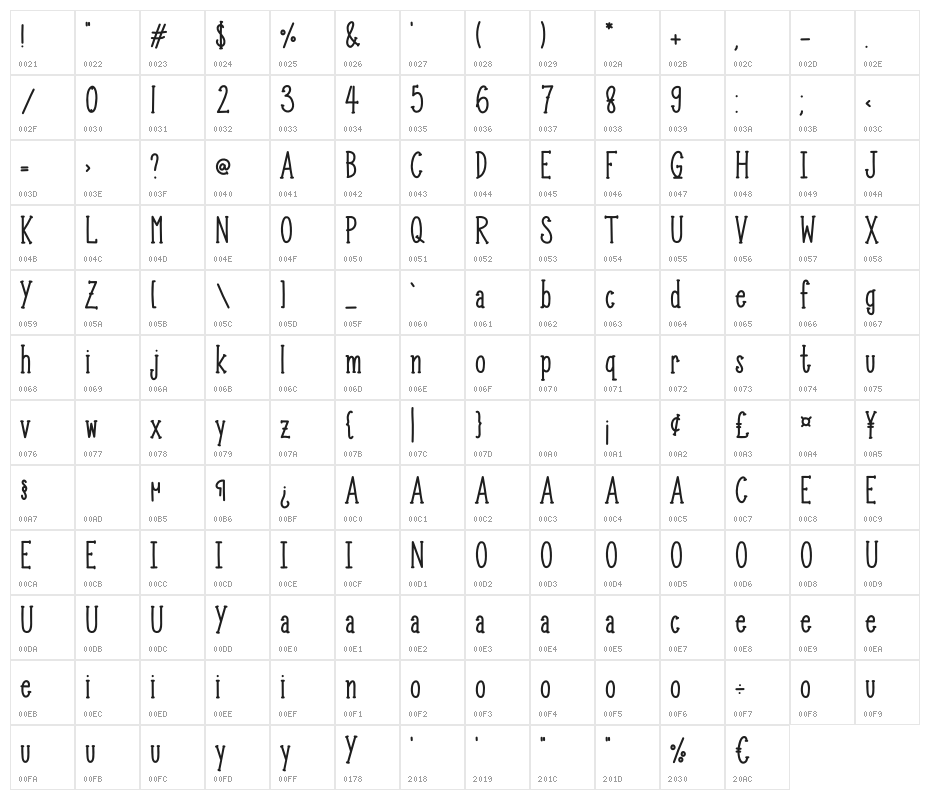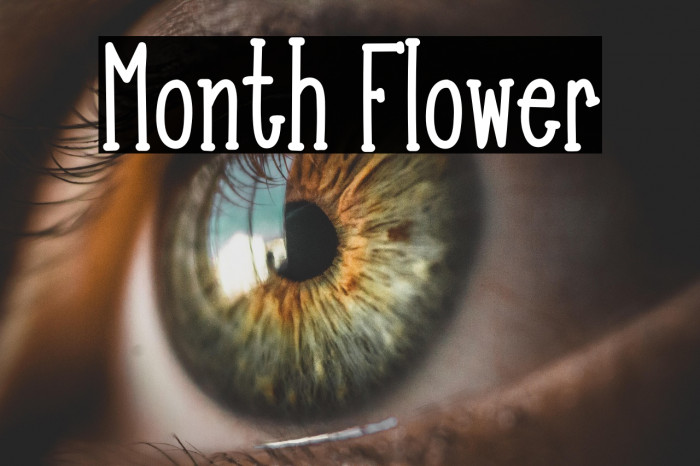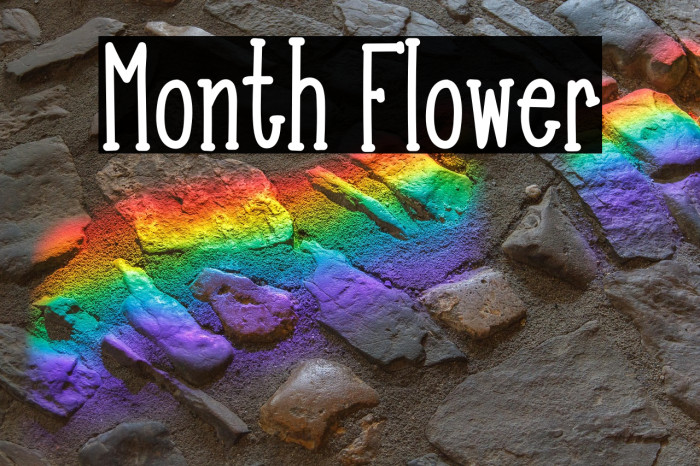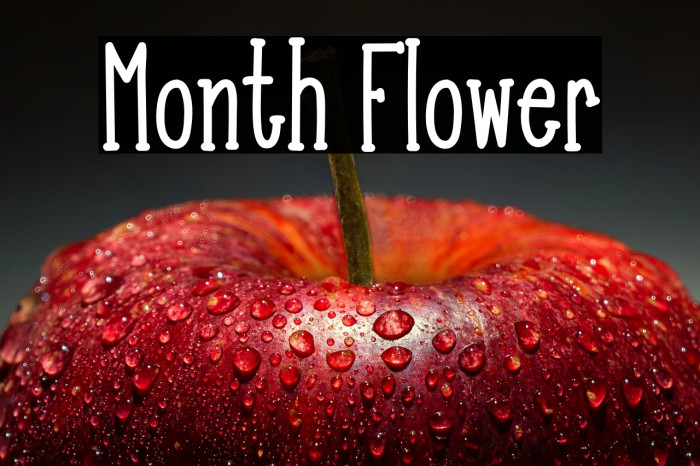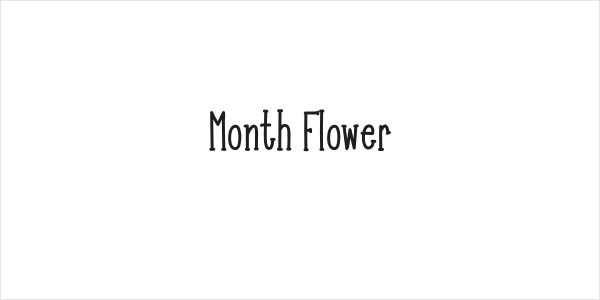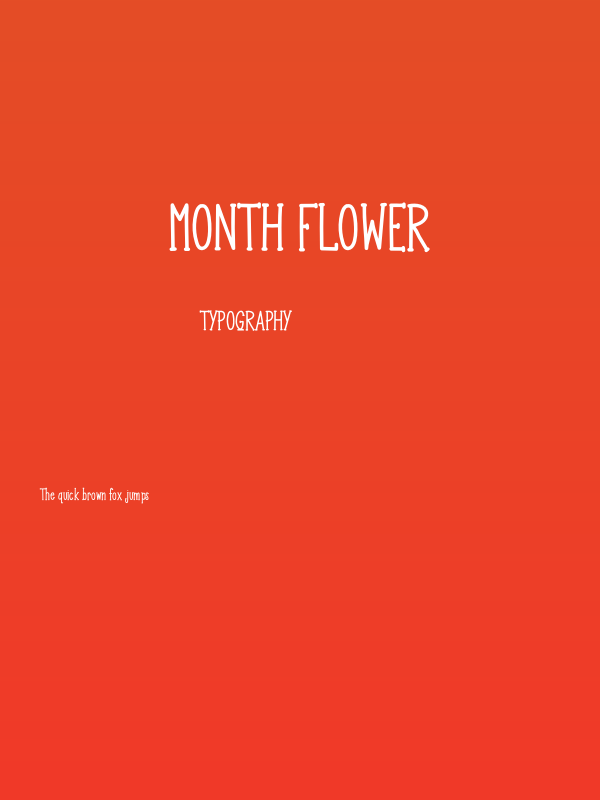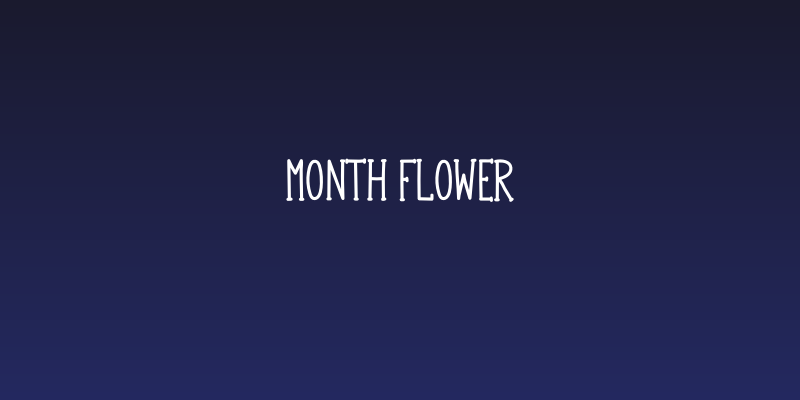
Month Flower Font
Month Flower Description
This font features a playful and whimsical design, characterized by its tall, narrow letters with rounded edges. The uppercase and lowercase letters maintain a consistent style, with a slight variation in stroke width that adds a hand-drawn feel. The numbers and special characters are designed to match the overall aesthetic, making it suitable for creative and informal projects. The font's unique style is both approachable and distinctive, making it ideal for designs that require a touch of personality and charm.
| Proposed Projects | Ideal for children's books, greeting cards, playful branding, and creative posters. |